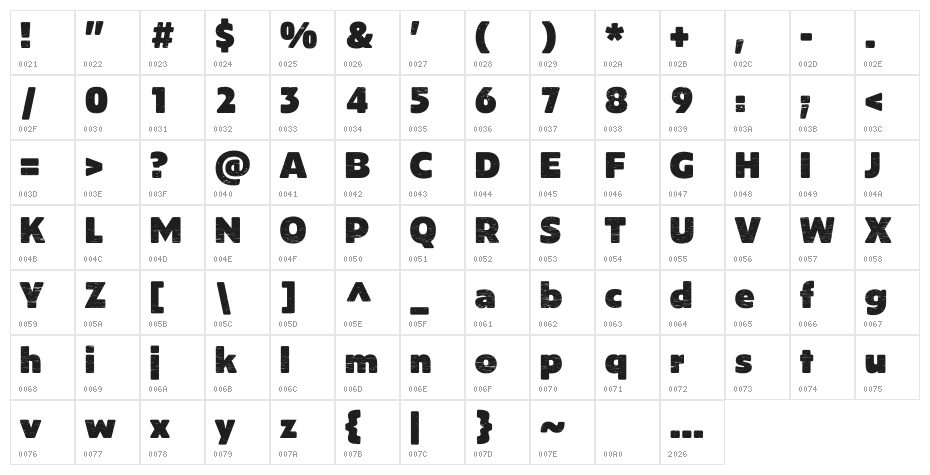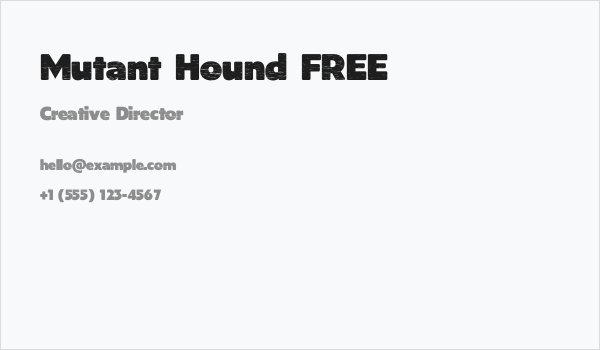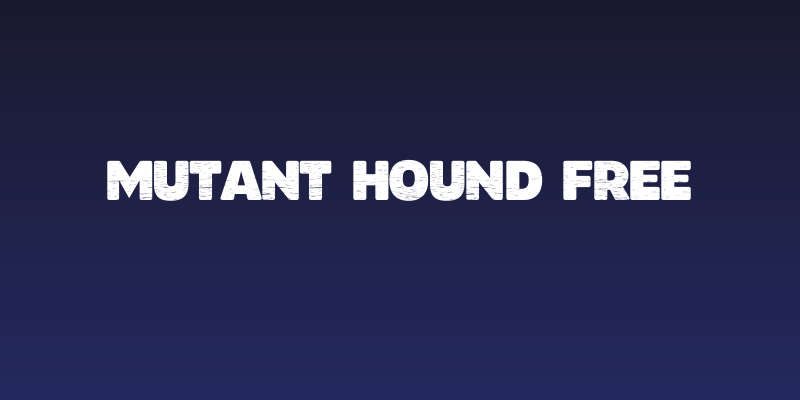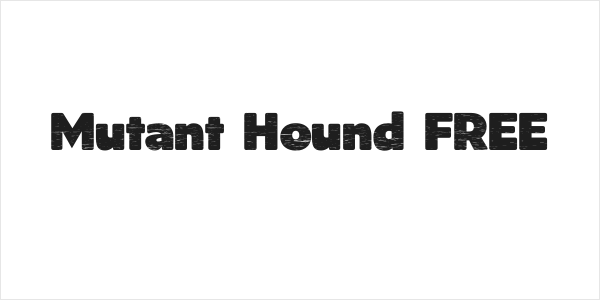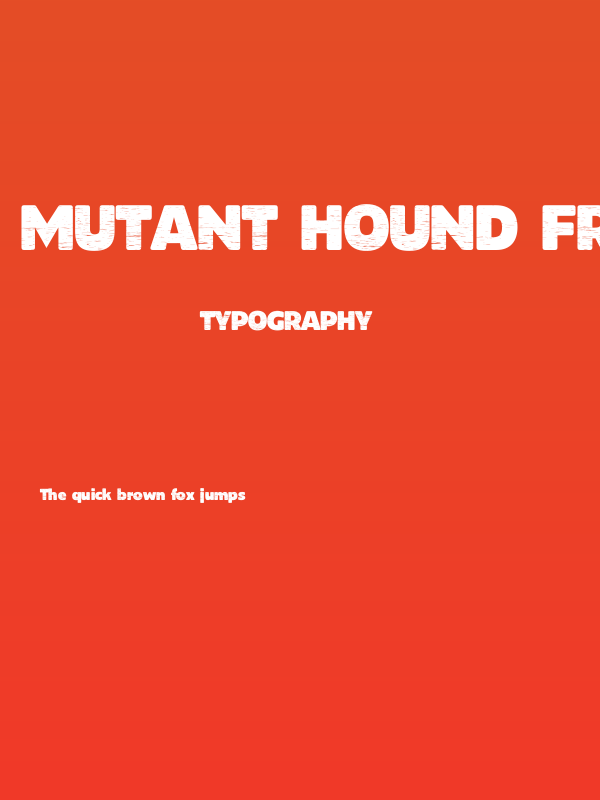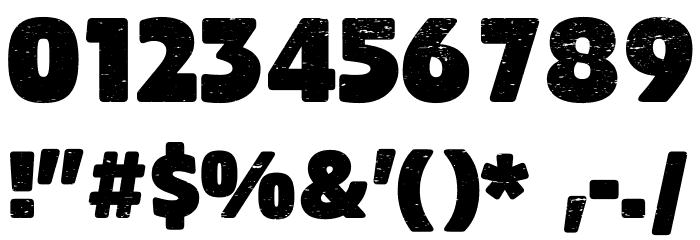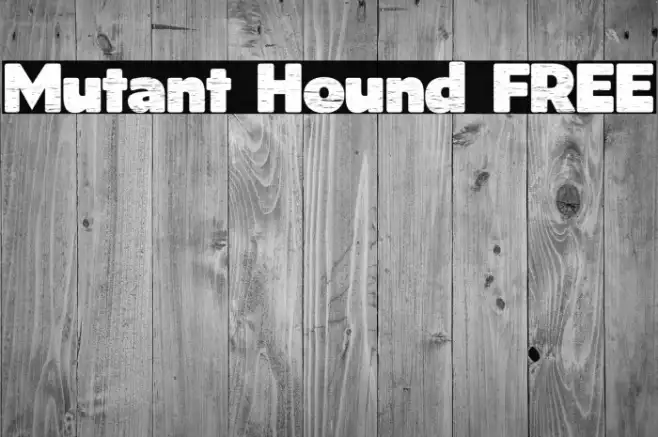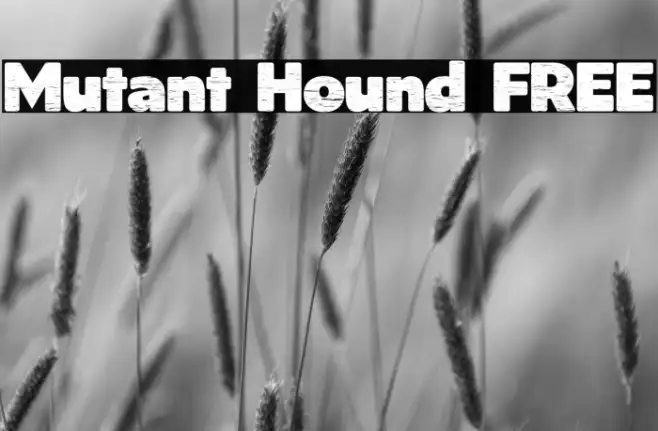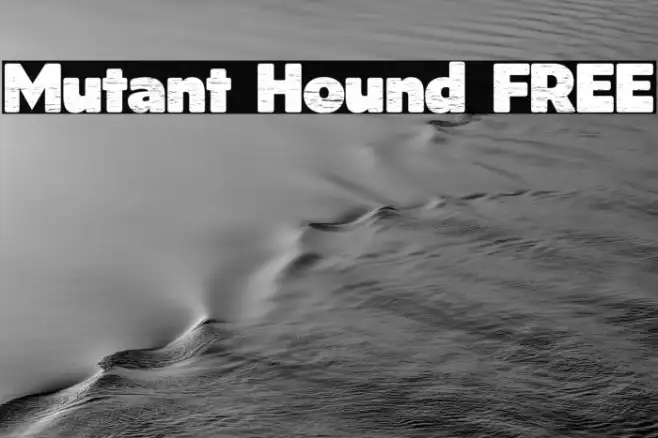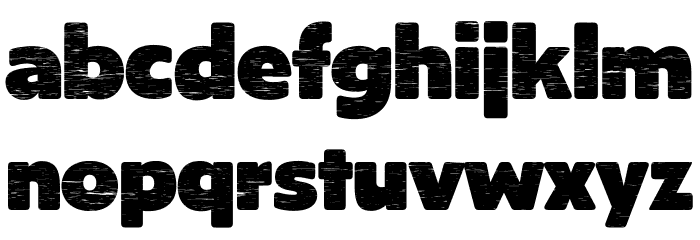
Mutant Hound FREE Font
Mutant Hound FREE Description
This font features a bold, distressed style with a rugged texture that gives it a worn, vintage appearance. The characters are thick and blocky, with a consistent weight throughout, making it highly legible even with the textured effect. The uppercase and lowercase letters maintain a uniform width, while the numbers and special characters are designed to match the overall aesthetic. The font's distressed look adds a sense of character and depth, making it suitable for projects that require a bold statement or a retro feel.
| Proposed Projects | Ideal for posters, logos, branding, and any design requiring a bold, vintage look. |